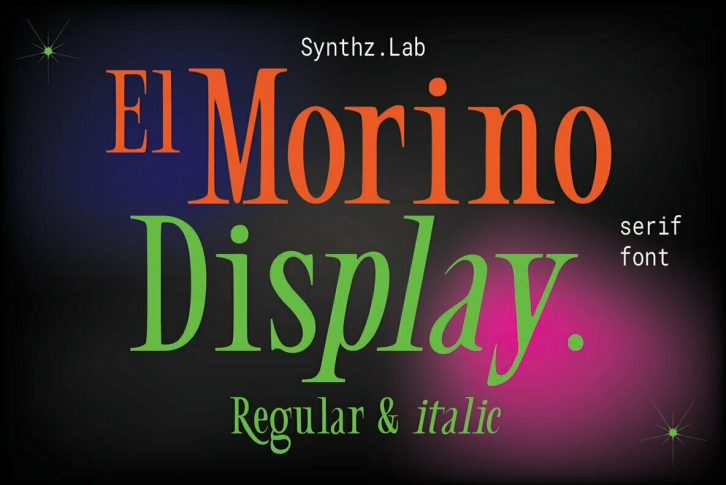
El Morino is an elegant and trendy serif font. Add it confidently to your projects, and you will love the results. This font is PUA encoded which means you can access all of the glyphs and swashes with ease!